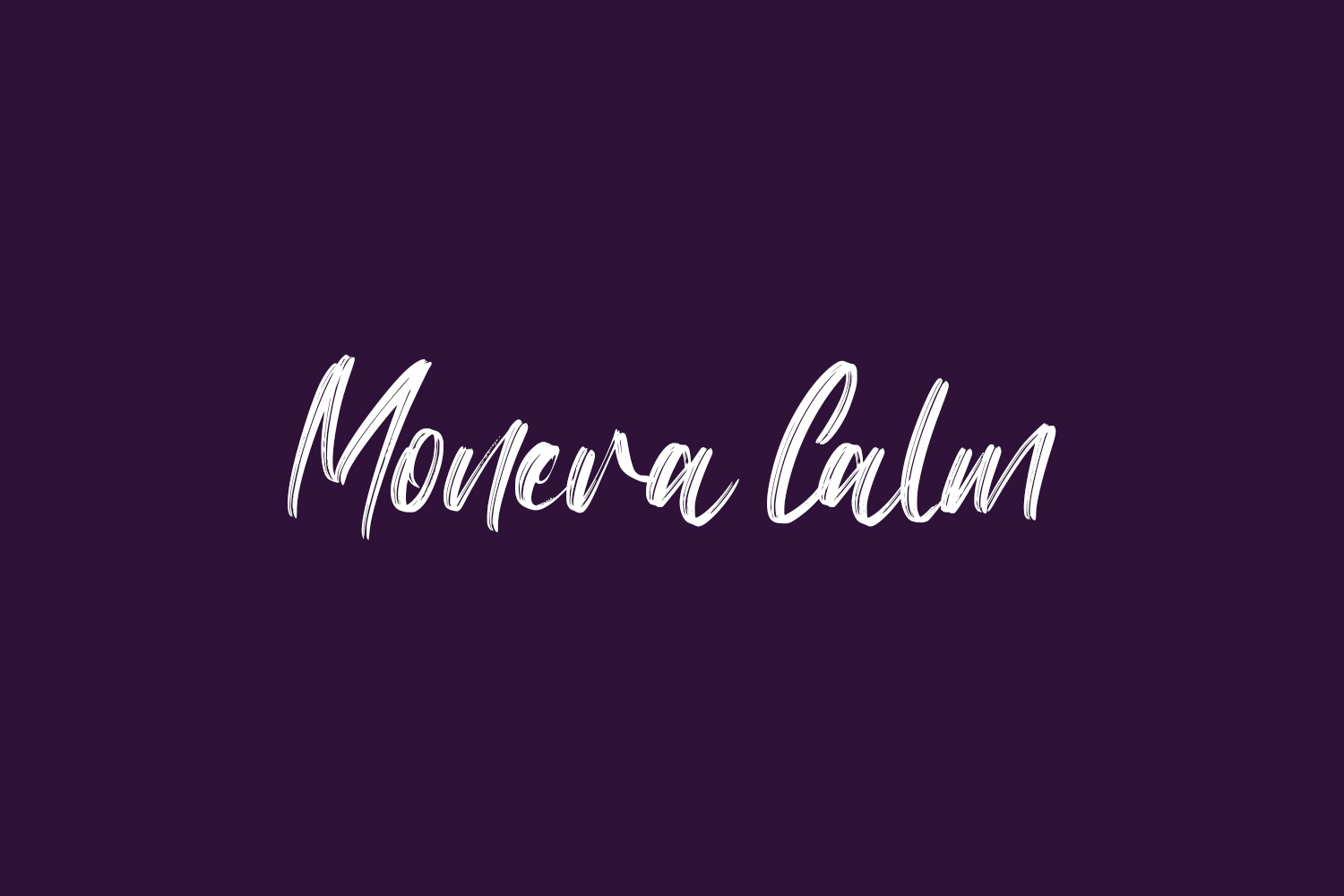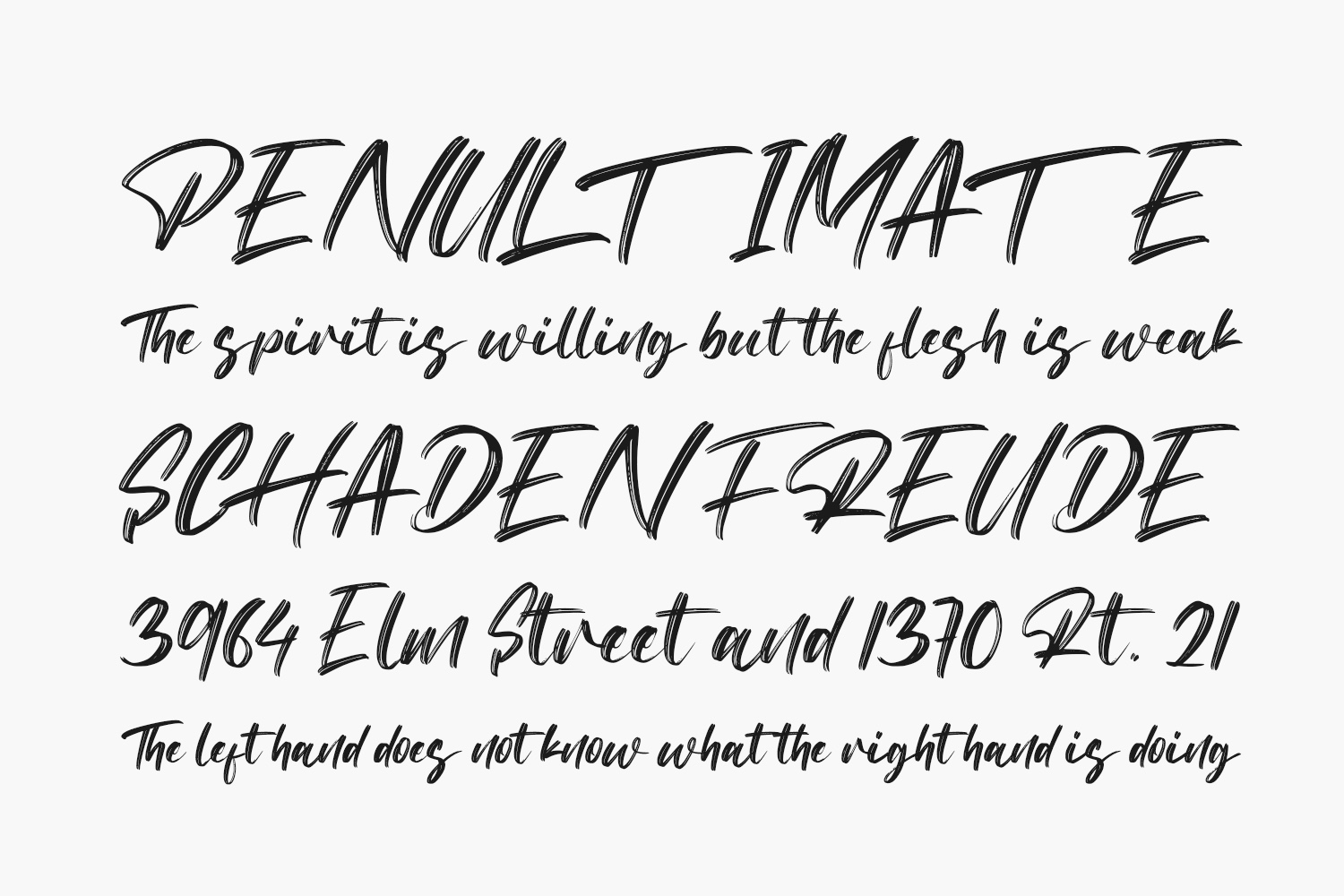
Monera Calm Free Font is a flowing brushed handwritten font, described by a ravishing touch, perfect for your creative ideas. Fall in love with its fashionable and daring style and use it to create lovely designs. Monera Calm Free Font was designed by FatmaStudio and is free for personal use only. Please purchase the full version for commercial use.